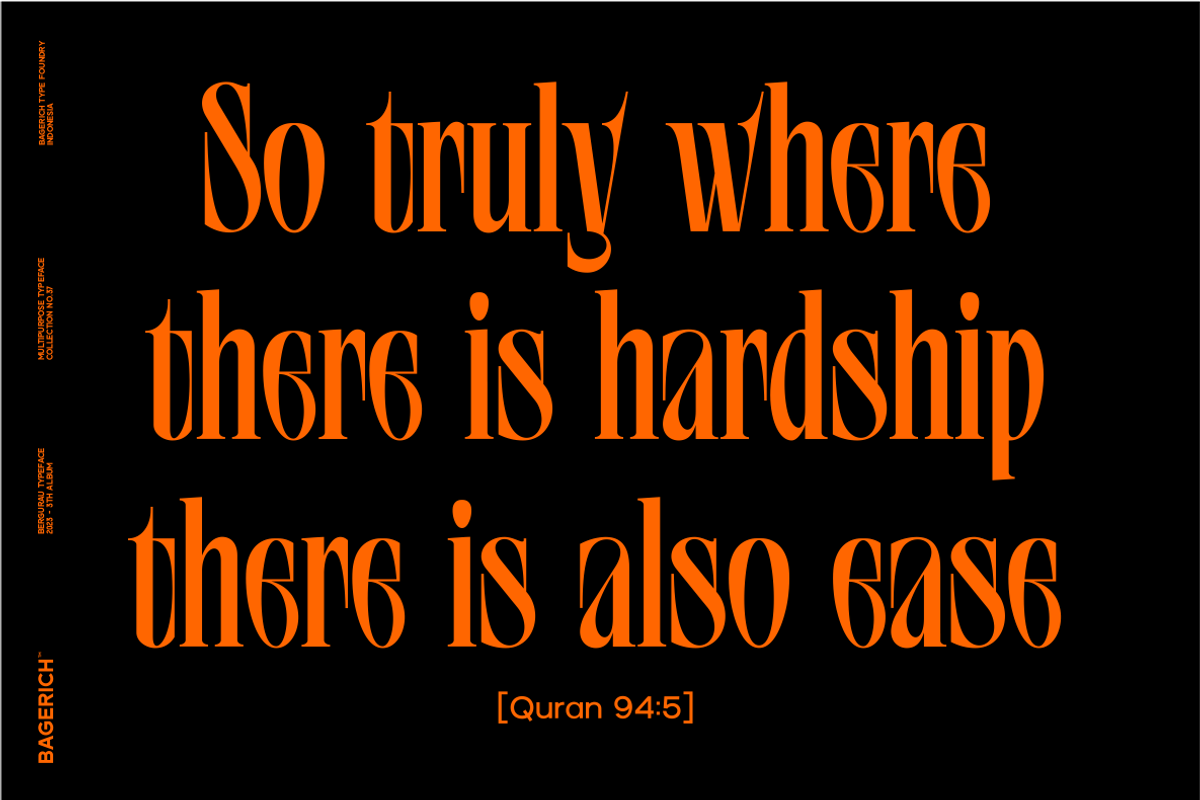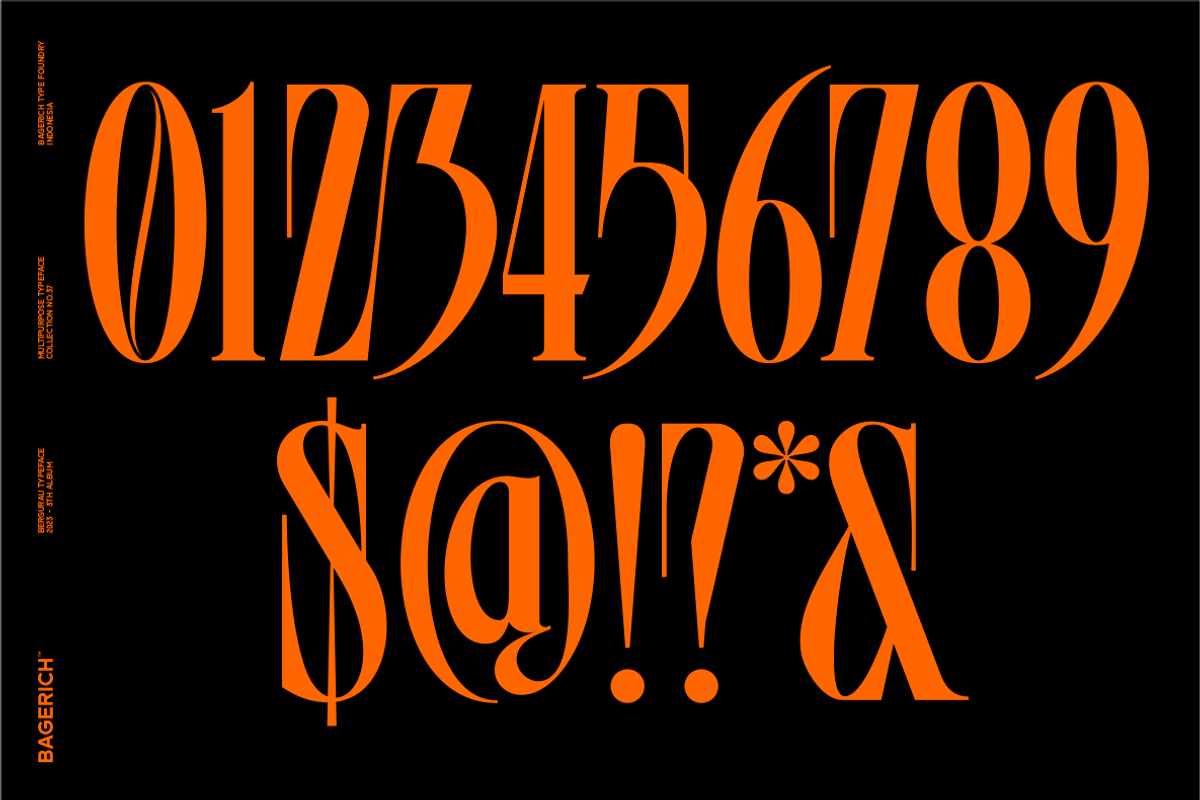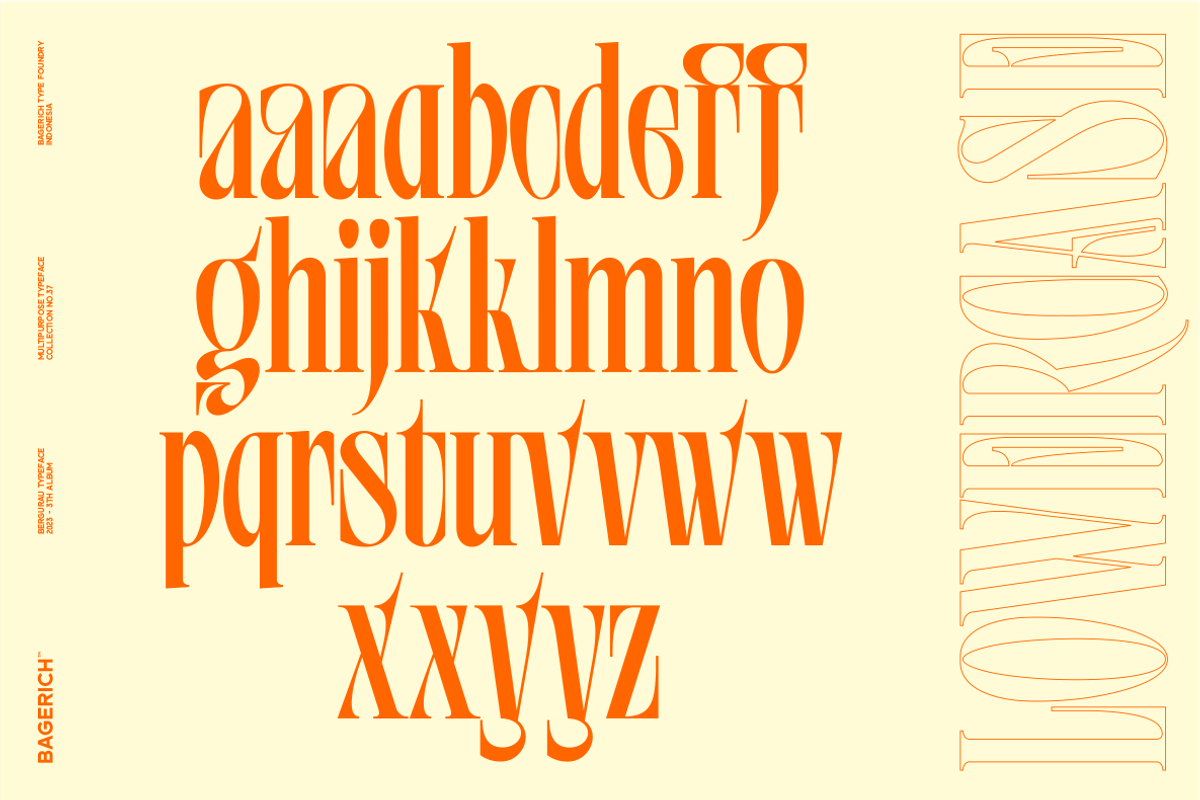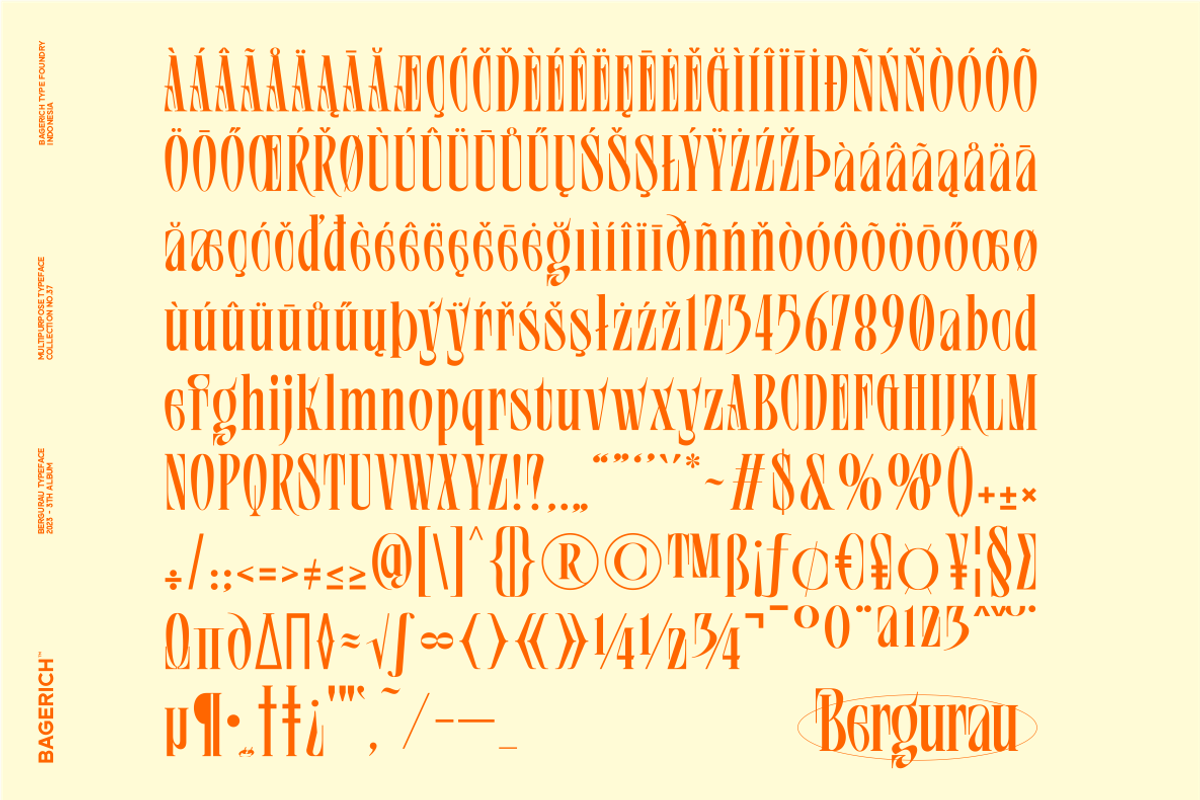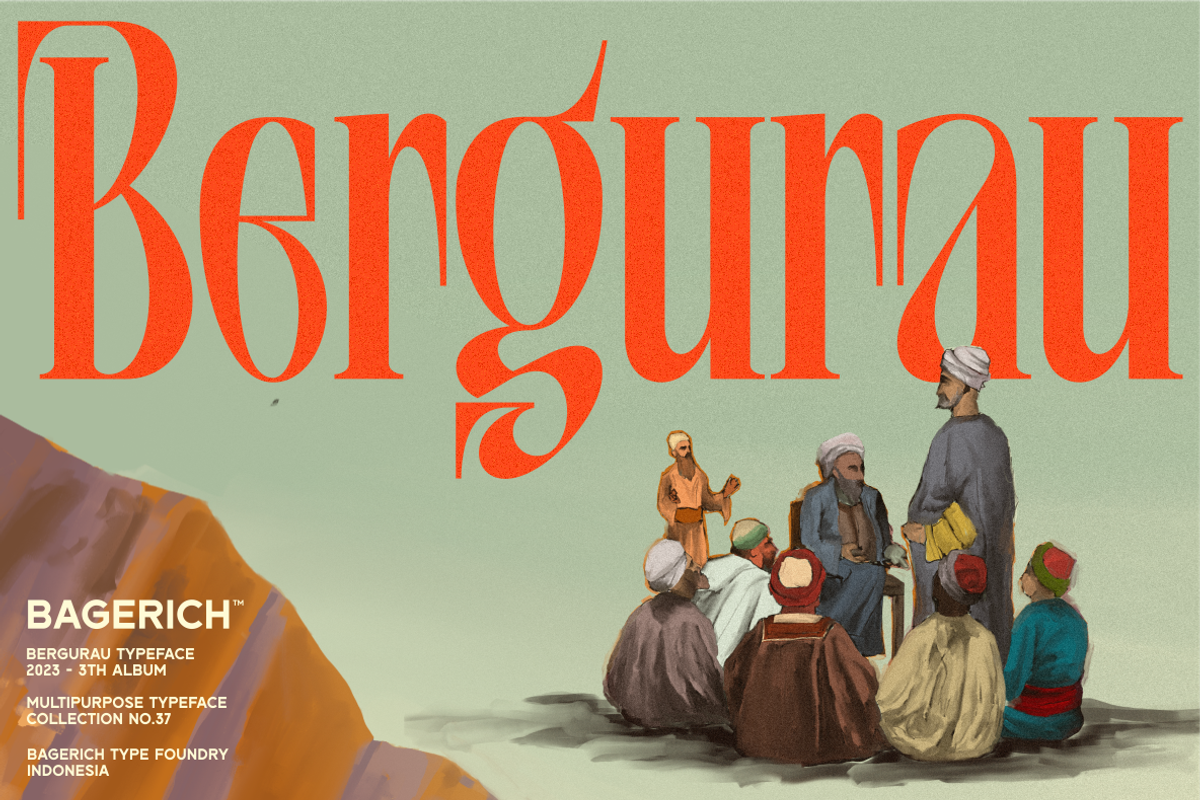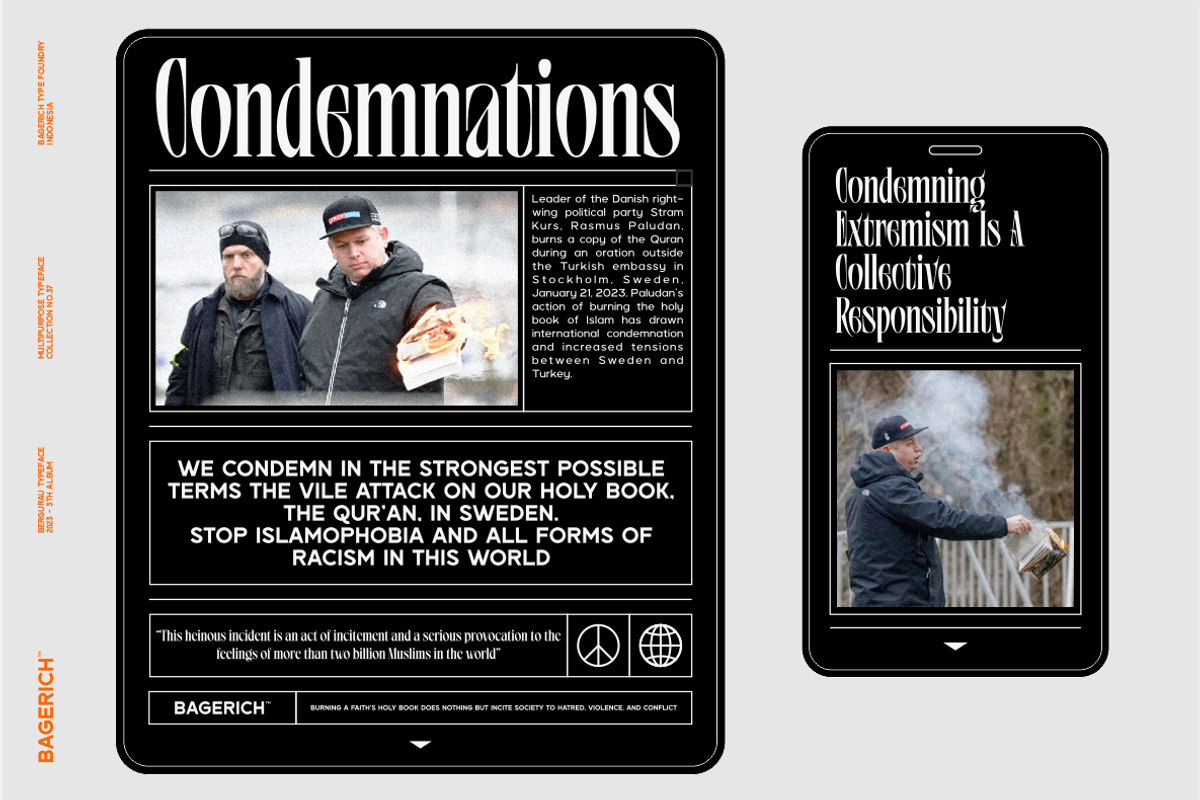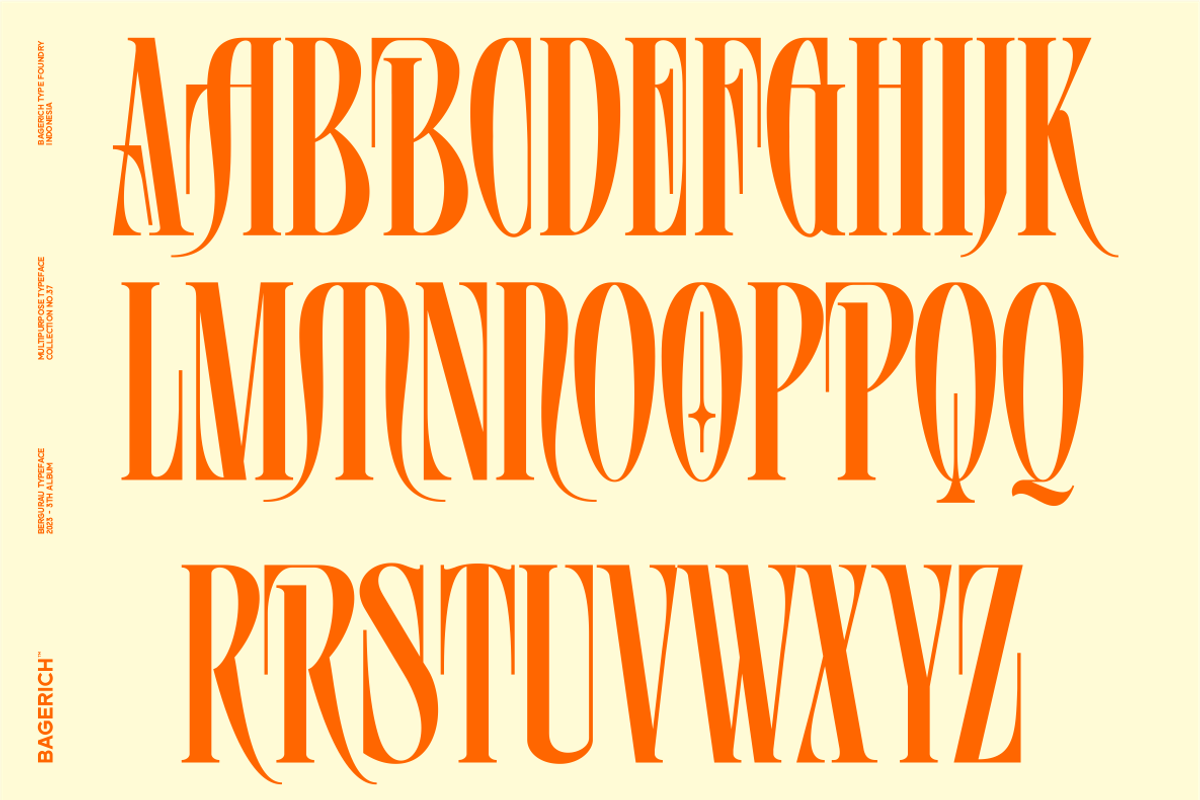
Bergurau Typeface
BERGURAU is a versatile and unique serif typeface, a result of half side curved serif and half side straight serif experiment. BERGURAU has a unique style with stylistic, alternates, ligatures and supports multilingual languages.
Create unique & beautiful logotype, use it as an elegant solution for your next magazine layout, or choose BERGURAU for any graphics that require a sleek look with a elegant flair.